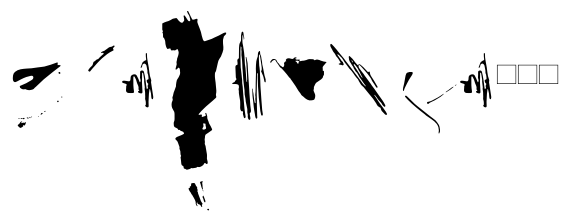
Smoke Signals
La familia tipográfica Smoke Signals fue diseñada por Ana Parracho y publicada por Ana's Fonts. Smoke Signals contiene 4 estilos y opciones de paquete familiar. Más información sobre esta familia
Smoke Signals is a calligraphy font handmade using a real dip pen and ink with lots of bonus goodies.
Smoke Signals includes:
• tons of ligatures for a smother text
• small caps that act as an all caps font
• a bonus set of ornaments
• a bonus set of grunge elements, such as splatters, ink blots, scratches
Smoke Signals is perfect for any design that needs a vintage calligraphy look. Use it in signatures and logos, notes and quotes, social media posts, and branding and packaging.